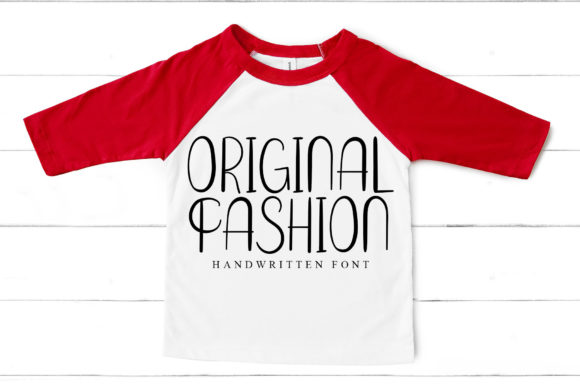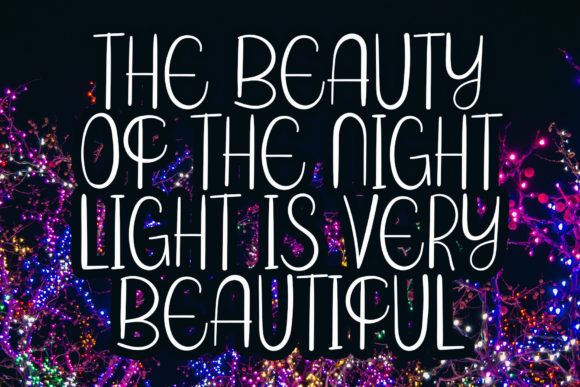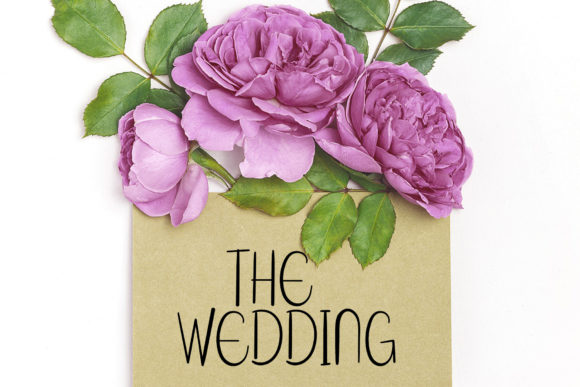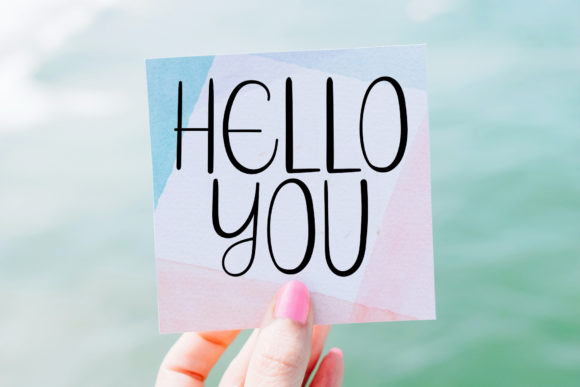
Introduction to Smart Love Font
As a designer, there’s nothing quite like the thrill of bringing a creative project to life. It’s that moment when the perfect font, color palette, and layout come together to convey the exact message you had in mind. For me, it’s the spark that ignites my passion for design. And, trust me, finding the right font can make all the difference.
Enter the Smart Love Font – a delightful, handwritten font that’s perfect for adding a touch of whimsy to your next design project. With its simple, thin, and cute design, this font is an absolute gem for designers looking to add some personality to their work. Whether you’re working on a logo, heading, t-shirt design, or signage, the Smart Love Font is an excellent choice.
Key Features of Smart Love Font
- Unique, hand-drawn design with a touch of elegance, perfect for creative projects.
- High-quality design with a transparent background, ideal for use on various design resources.
- Includes 12 different font styles with varying levels of opaqueness, allowing for customization.
- Supports a wide range of languages, including Latin, Cyrillic, and Greek alphabets.
- Available in 3 different font sizes: 48px, 64px, and 96px, with a resolution of 300 DPI.
- Perfect for use in various design projects, including logos, typography, and digital art.
Honest Review: Smart Love Font
As a designer, I’m always on the lookout for high-quality design resources to elevate my creative projects. Recently, I stumbled upon the Smart Love Font, and I must say, it’s been a game-changer for me.
What works well: ✨ The font’s modern and playful vibe makes it perfect for a variety of design applications, from social media graphics to wedding invitations. The font’s versatility and high-quality design make it a great addition to any designer’s toolkit.
Here are some of the key features that make the Smart Love Font stand out:
- High-quality design: The font’s crisp and clean design ensures that it will look great on any background, including transparent backgrounds.
Limitations: ⚠️ While the Smart Love Font is an excellent resource, it’s not without its limitations. The font’s limited character set may be a drawback for designers who need to work with a wide range of languages.
Overall impression: The Smart Love Font is a fantastic addition to any designer’s toolkit. Its modern design, high-quality features, and free download make it an excellent choice for creative projects. While it may have some limitations, the font’s versatility and value make it a must-have for any designer.
Tips for Getting the Most Out of Smart Love Font
Use the Smart Love Font in a creative project to add a touch of elegance and sophistication. Experiment with different font sizes and styles to create a visually appealing design. Make sure to pair the font with a transparent background to achieve a clean and modern look.
The Smart Love Font is ideal for wedding invitations, birthday cards, and other greeting cards. You can also use it in social media graphics, blog posts, and website headers to add a personal touch. With its high-quality design and transparent background, the Smart Love Font is a versatile design resource that can be used in a variety of creative projects.